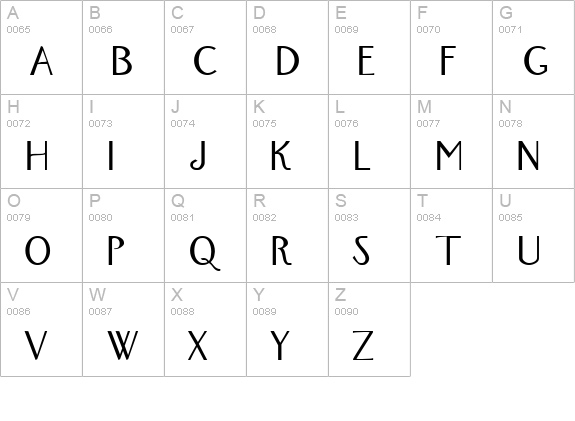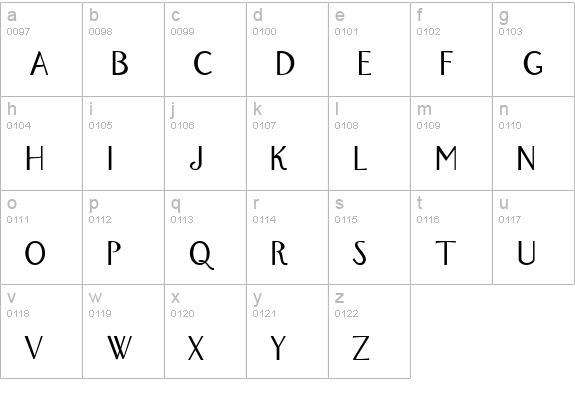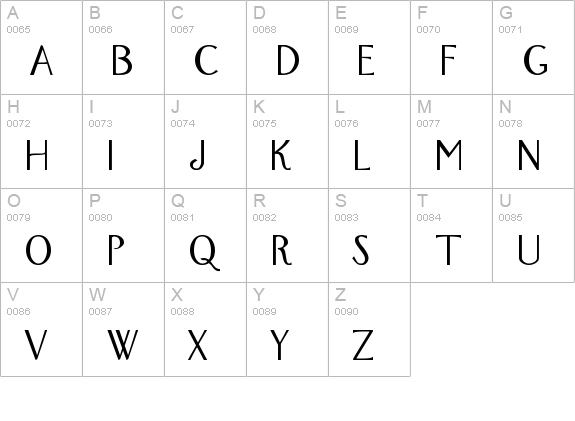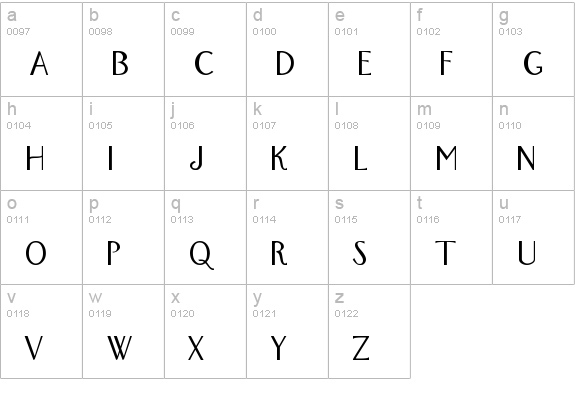
Lausanne Font Details
Lausanne font is a modern and elegant typeface that exudes sophistication and style. With its sleek lines and graceful curves, Lausanne is perfect for adding a touch of class to any design project. Whether you're creating a logo, poster, or website, this versatile font will make your text stand out. What sets Lausanne font apart is not only its visual appeal but also its accessibility. This exquisite font is available for free download at FontsMarket.com, making it a valuable resource for designers and creatives looking to elevate their work without breaking the bank. Don't miss the opportunity to enhance your projects with the timeless beauty of Lausanne font.